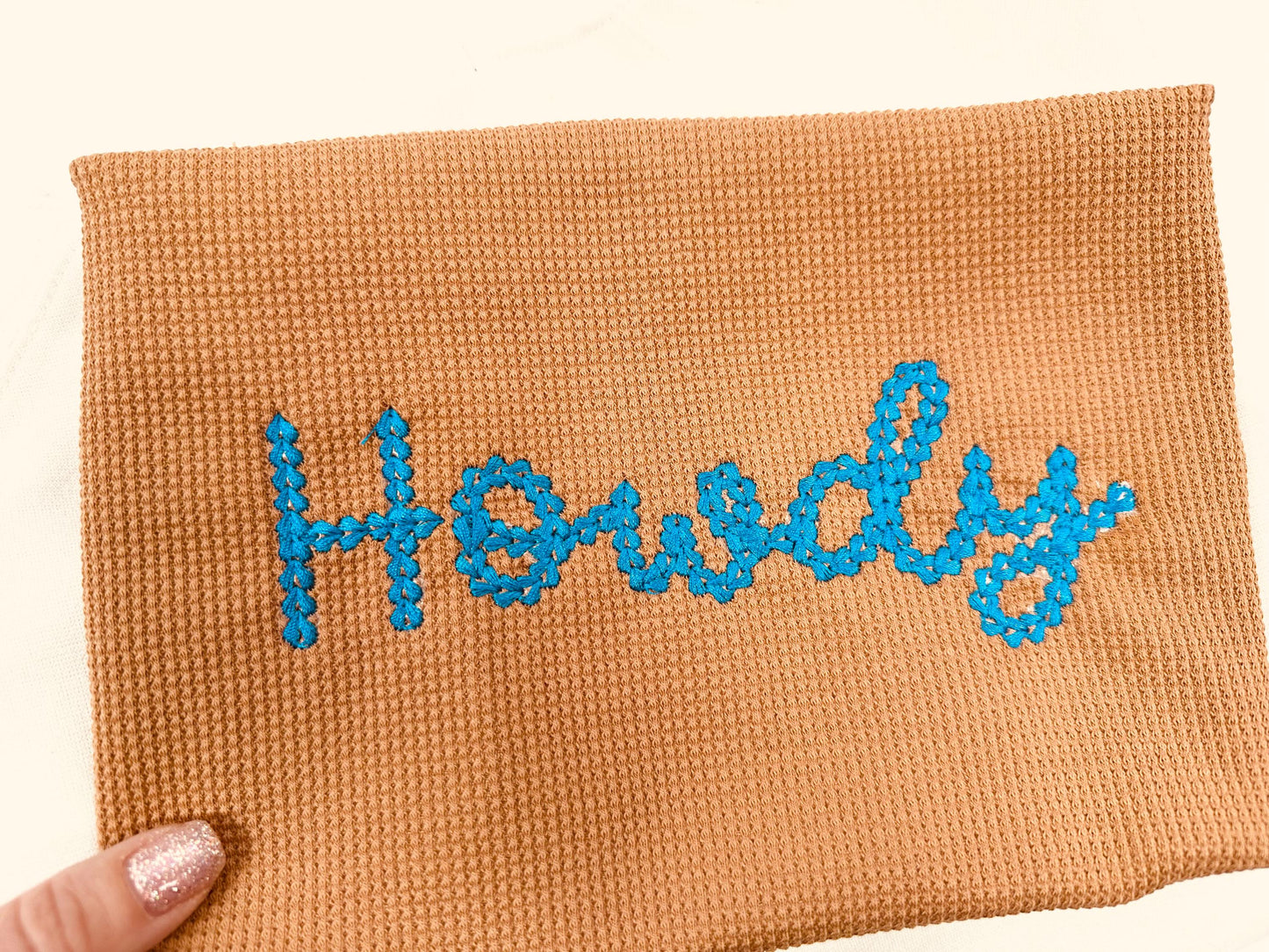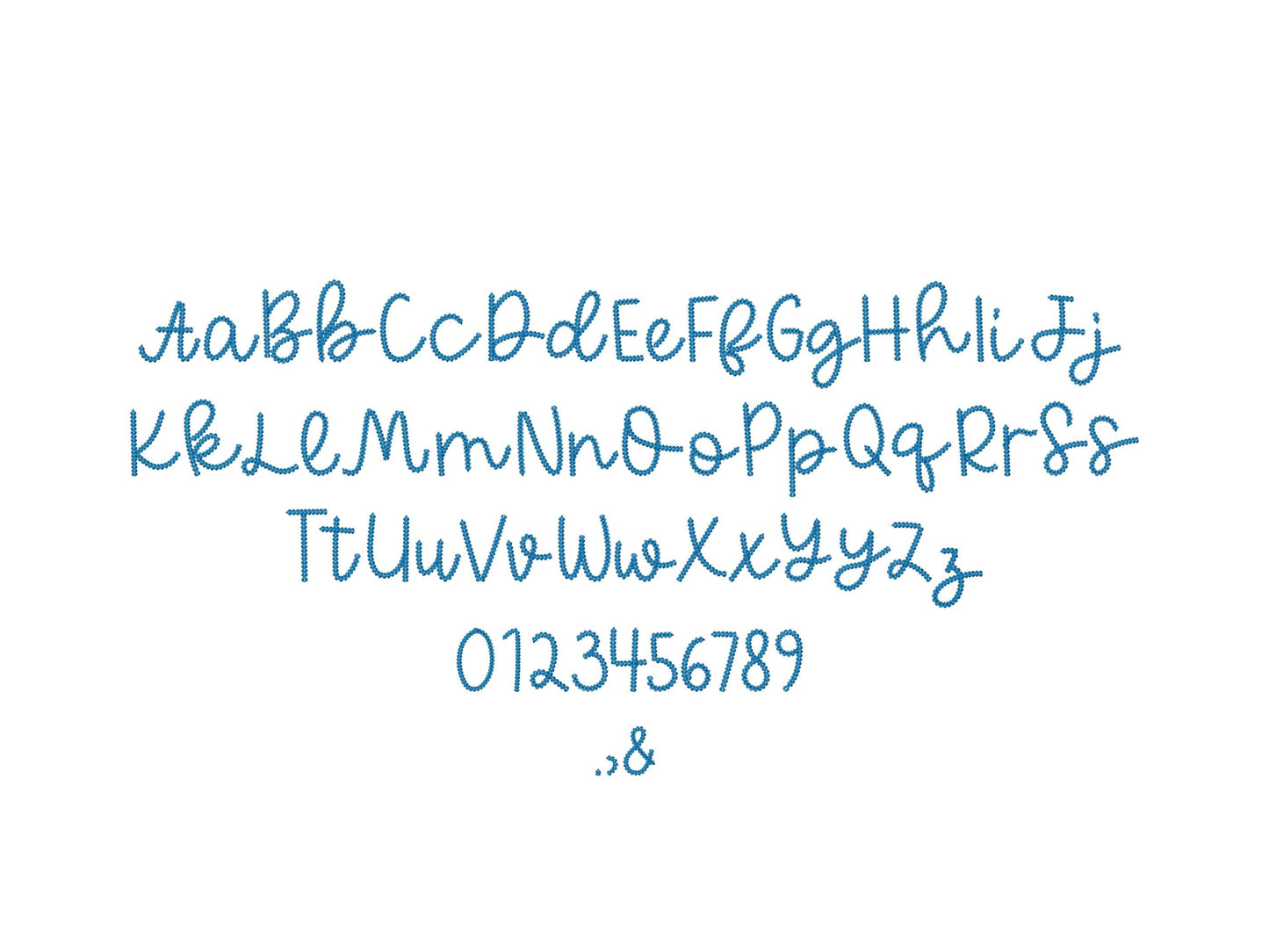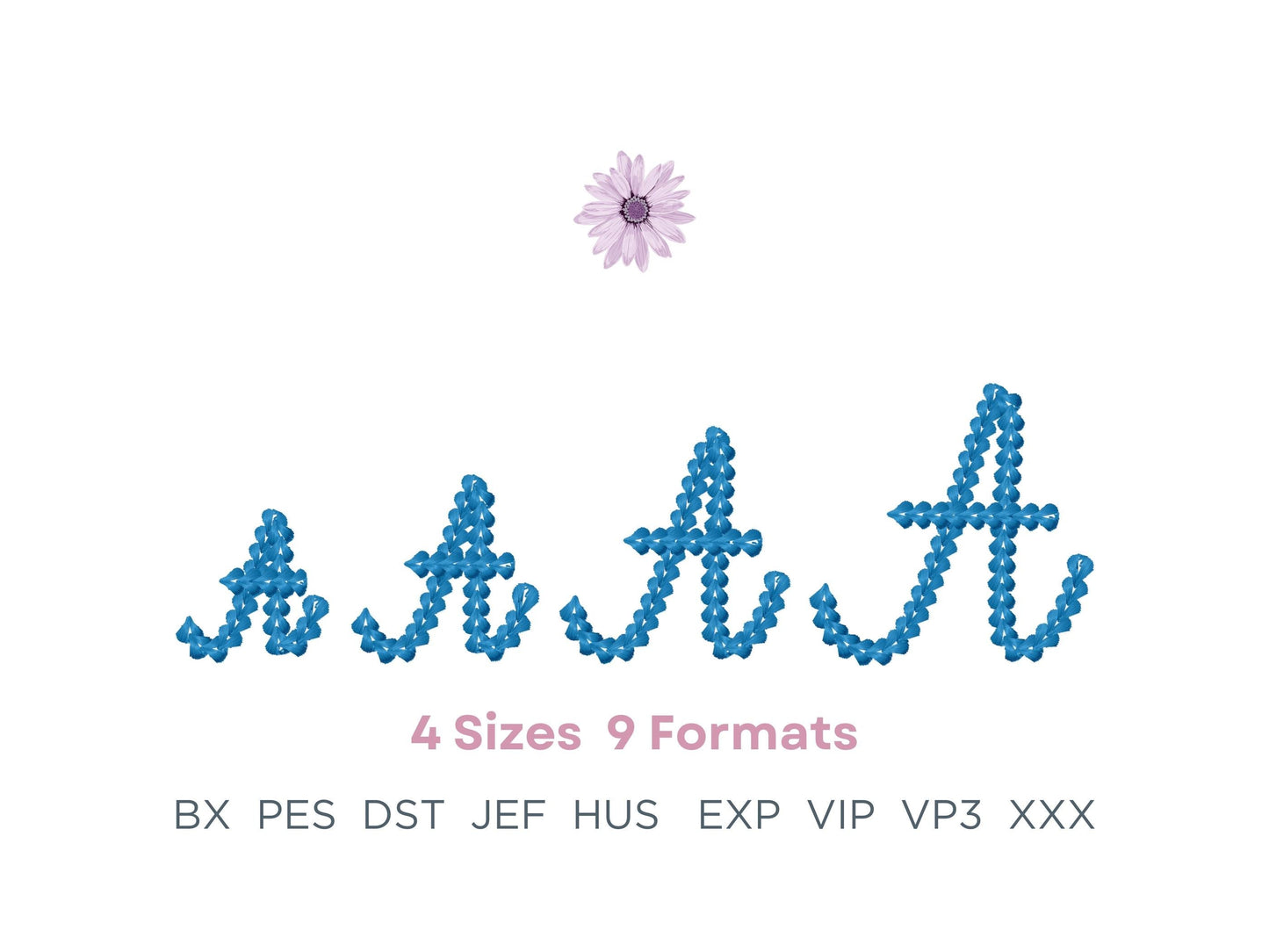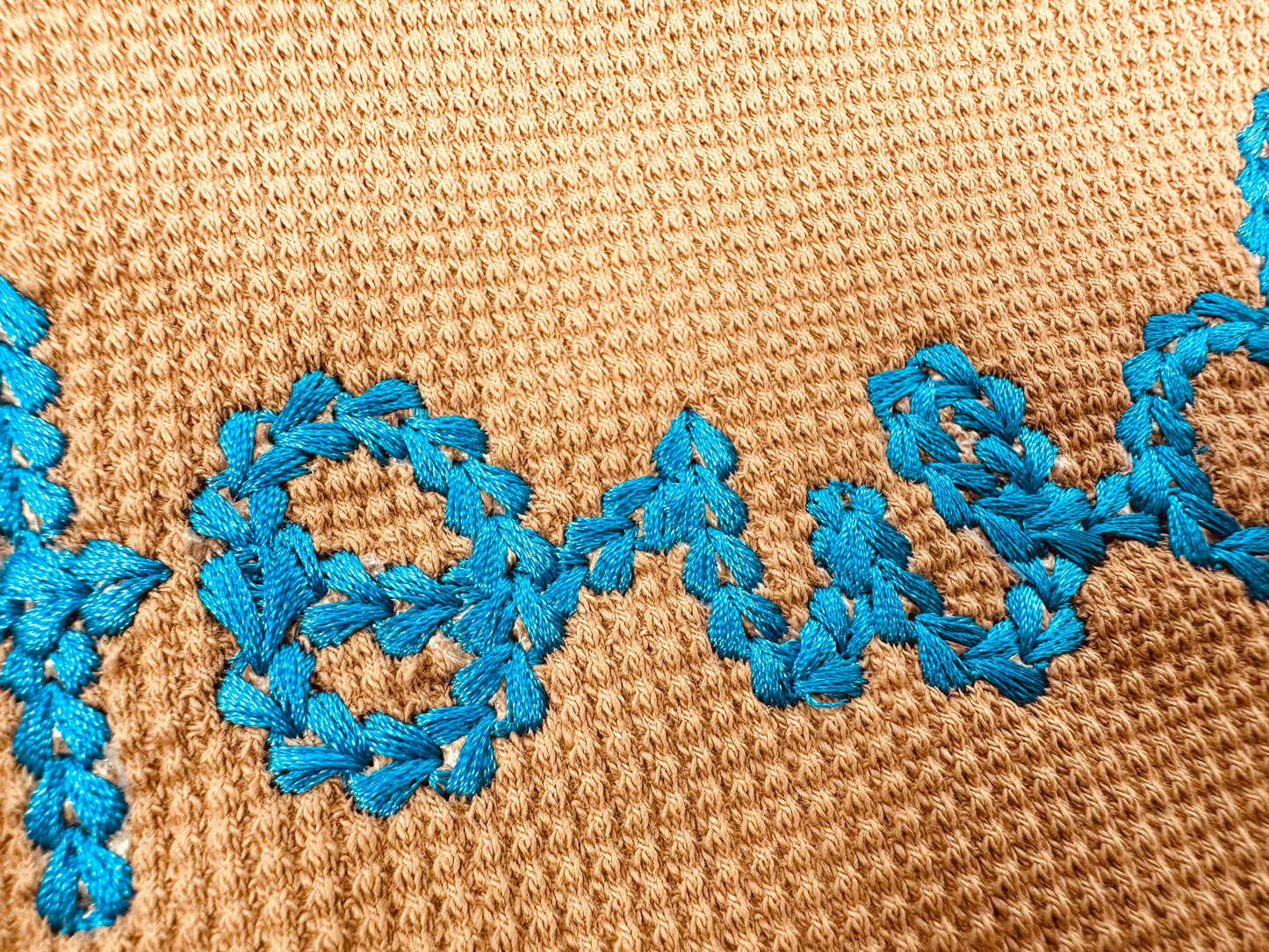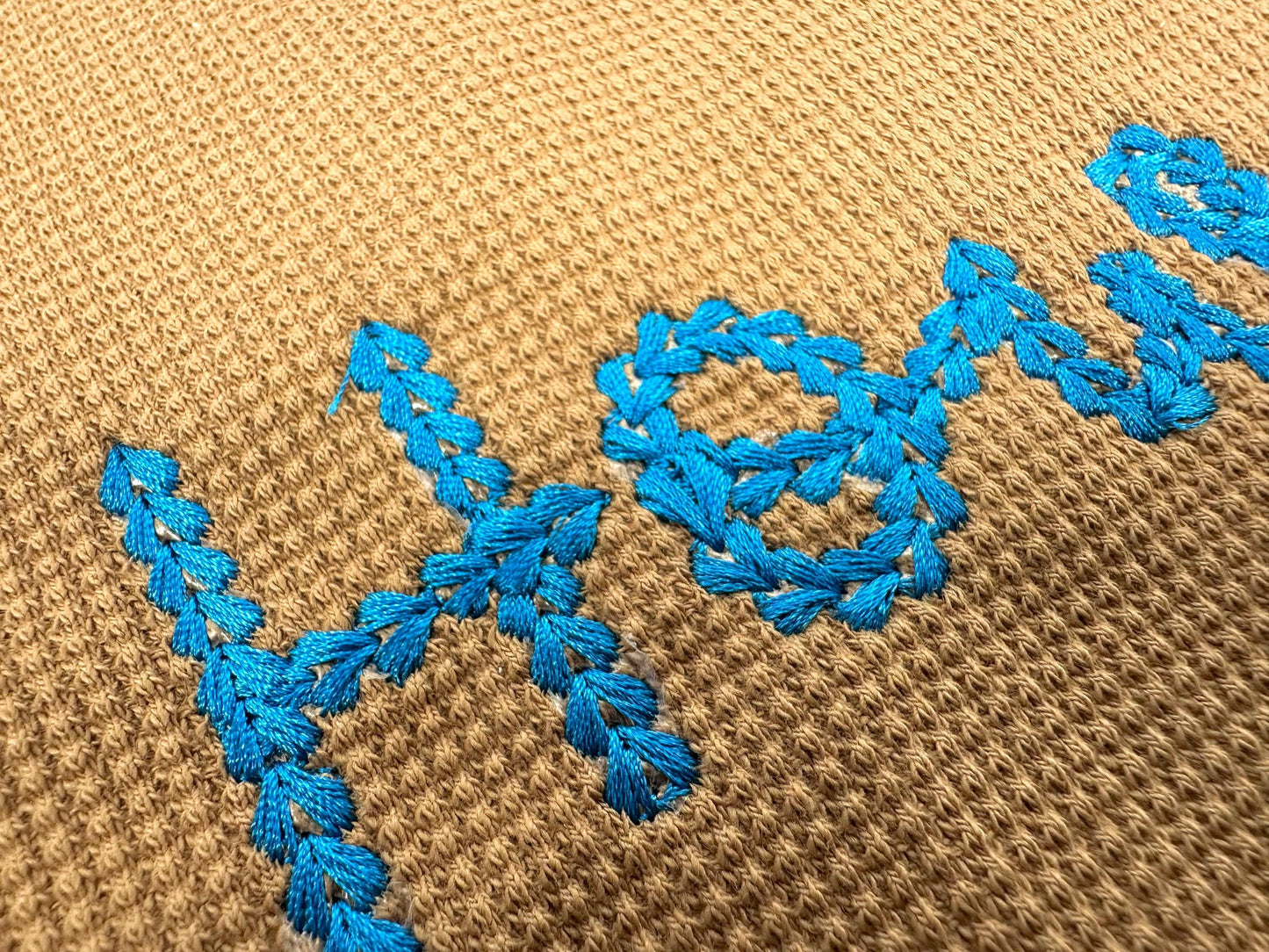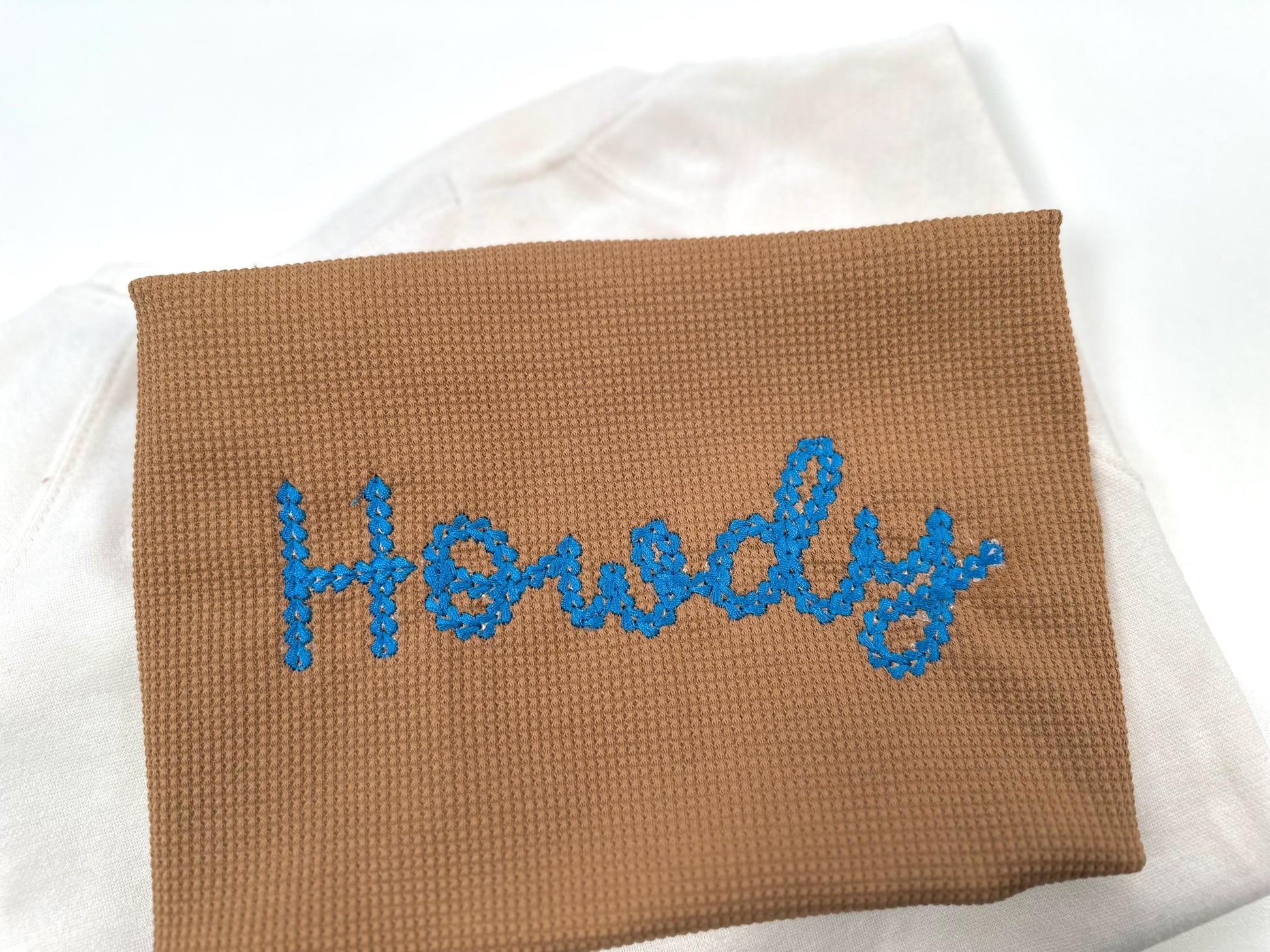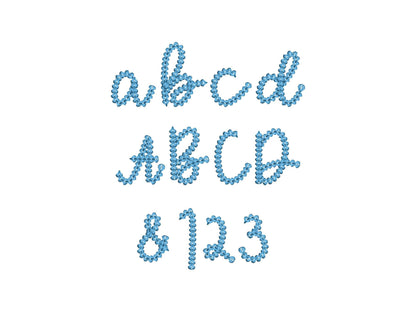
Extra Bold Chain Font Handwritten Script
Or click to open the linkAn extra bold chain stitch script with a hand-knit sweater look, for names on sweaters, jackets and bags.
Dense chain stitch letters. Uppercase and lowercase letters, numbers, ampersand, comma and period in four sizes: 1.8, 2.4, 2.8 and 3.5 inches.
- Extra bold chain stitch script font
- Uppercase, lowercase, numbers 0-9, punctuation